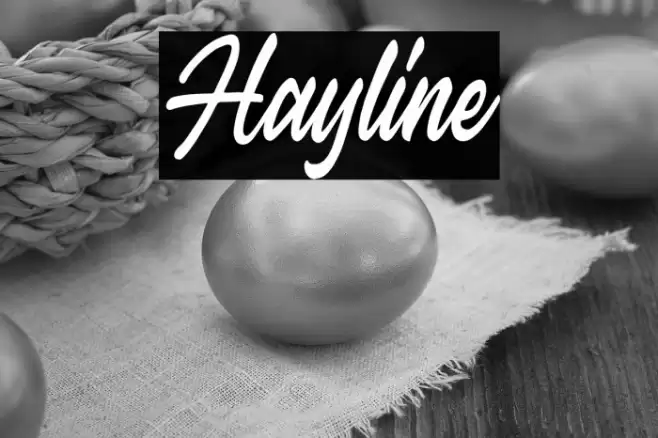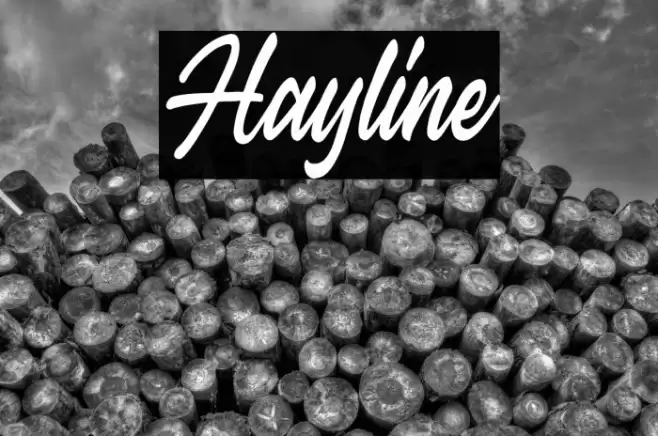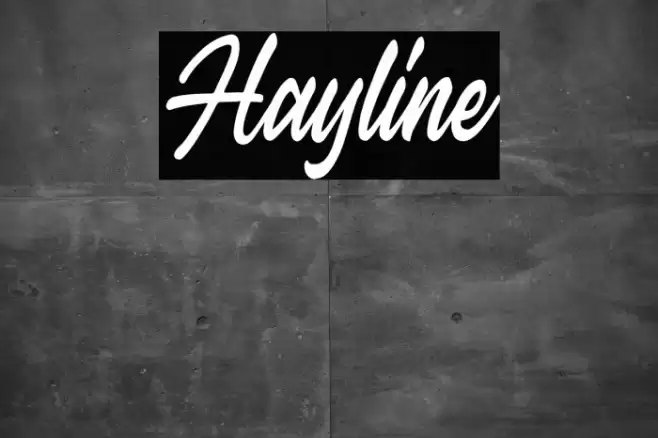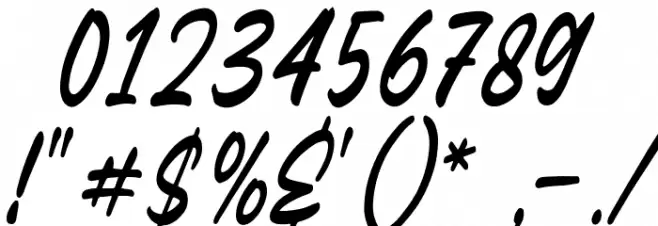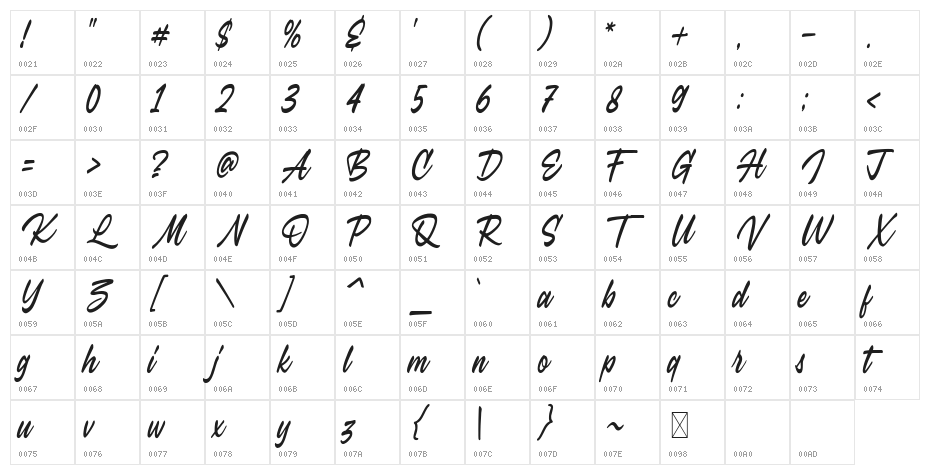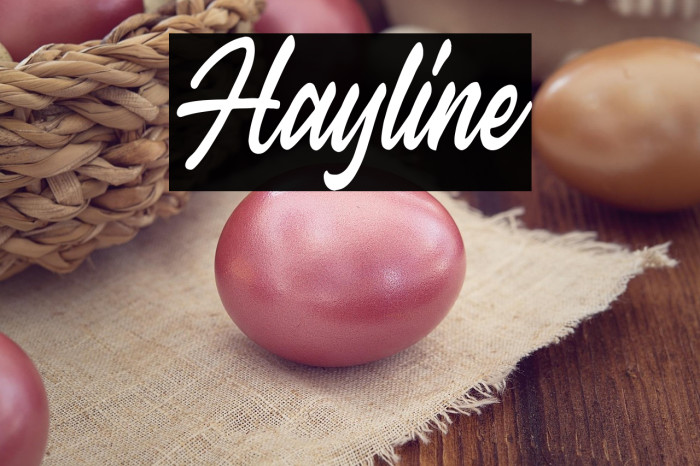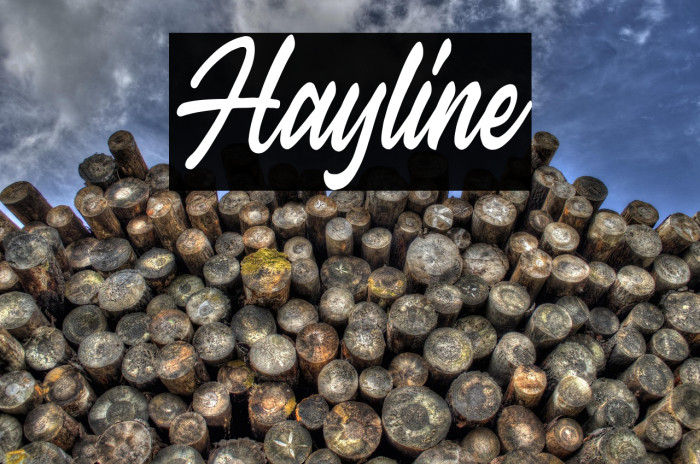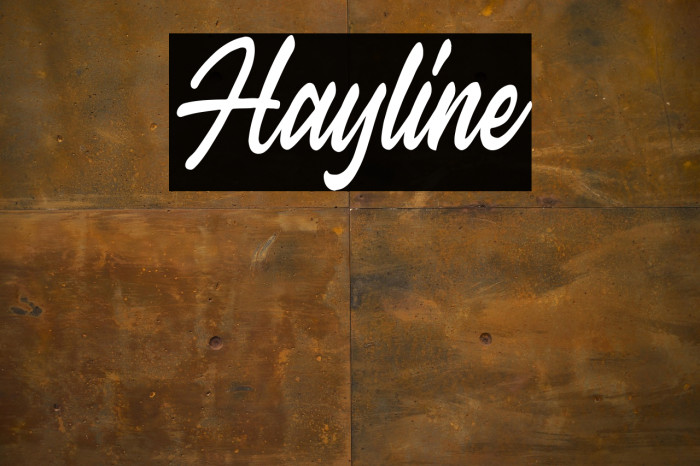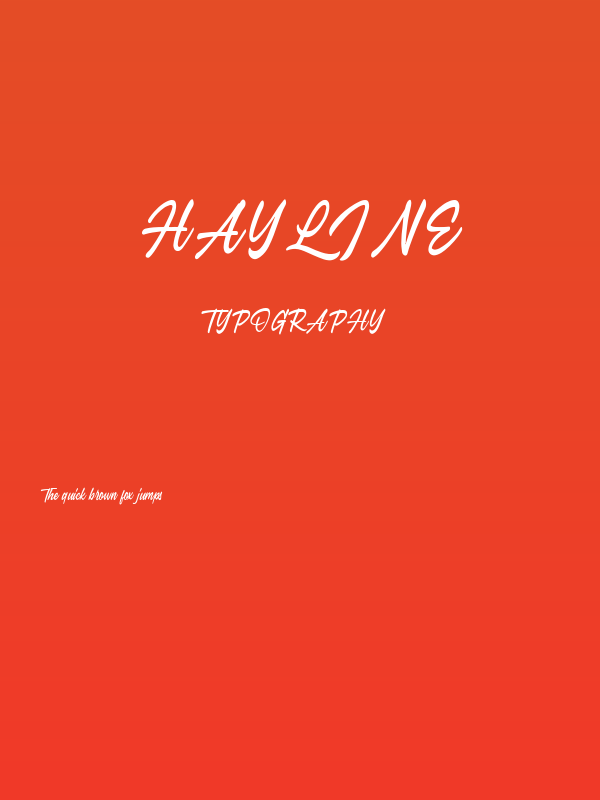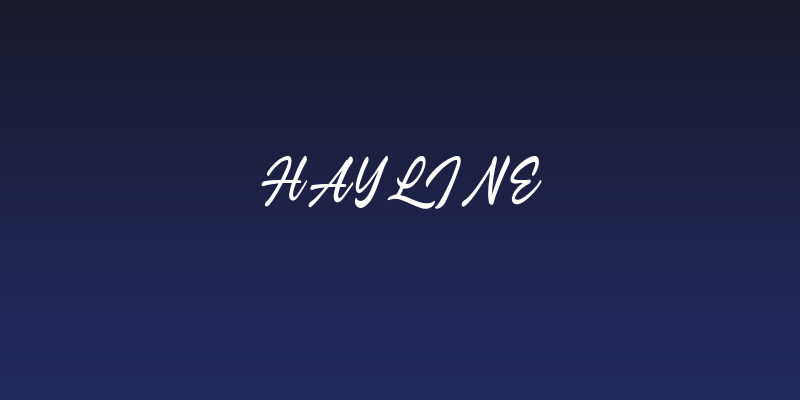
Hayline Font
Hayline Description
This font exhibits a dynamic and fluid script style, characterized by its elegant, flowing curves and connected letterforms. The uppercase letters stand tall with a slight slant, while the lowercase letters maintain a consistent rhythm, enhancing readability. The numerals are bold and clear, matching the overall aesthetic. Special characters are thoughtfully designed, integrating seamlessly with the rest of the typeface. This font's expressive nature makes it ideal for creative and artistic projects, where a personal touch is desired.
A dynamic and fluid script font with elegant, flowing curves from Regular fonts.
- Proposed Projects: Ideal for wedding invitations, greeting cards, branding, and logo design.
- Use Case: Logos, Headlines, Invitations